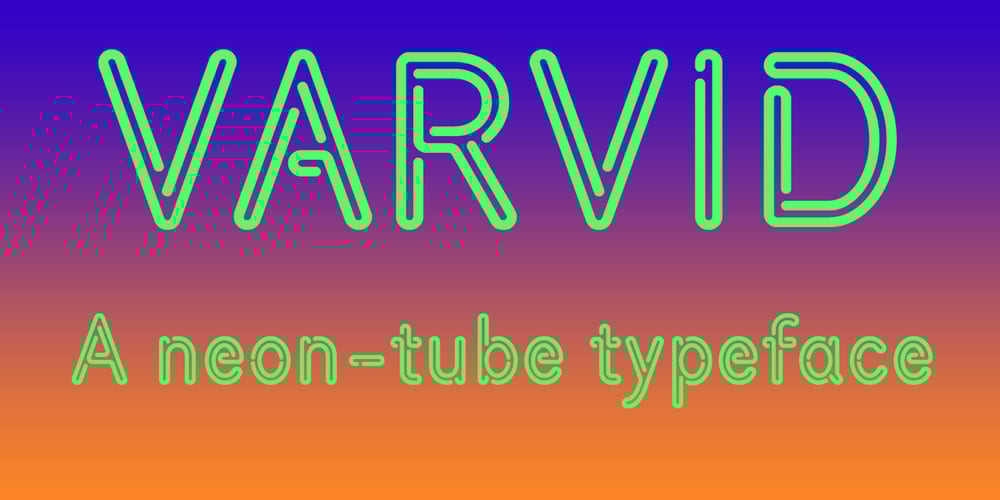
Varvid Font Family was designed by Lars Törnqvist and published by Cercurius. Varvid contains 2 styles and family package options. The characters in this font are composed of rounded lines with even thickness, giving an impression of neon tubes. Although the design is completely new, it has its stylistic roots in the modernistic 20th century world of steel-tube chairs and fluorescent lamps.